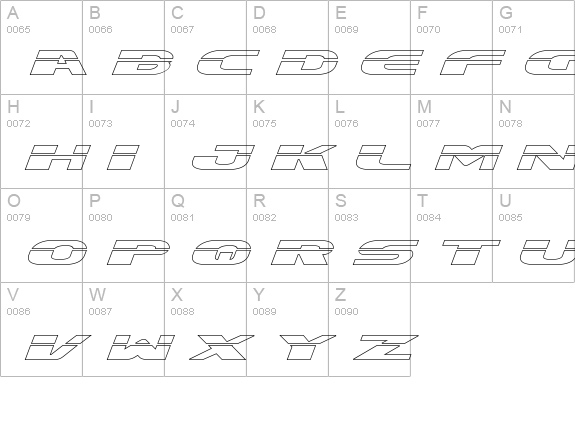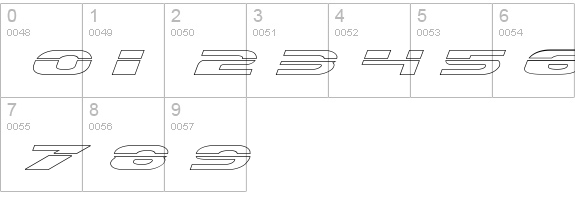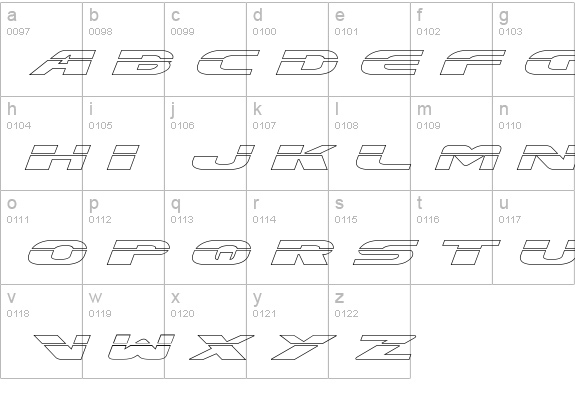
Excelerate Outline Font Details
Excelerate Outline font is a modern and sleek typeface that is perfect for creating eye-catching designs. Its clean lines and sharp edges give it a contemporary look that is sure to make your projects stand out. This font is versatile and can be used for a variety of purposes, from branding to web design to print materials. Best of all, Excelerate Outline font is completely free to download at FontsMarket.com. Whether you're a designer looking for a new font to add to your collection or a business owner in need of a fresh look for your branding, Excelerate Outline font is a fantastic choice. Download it today and see how it can elevate your designs to the next level.